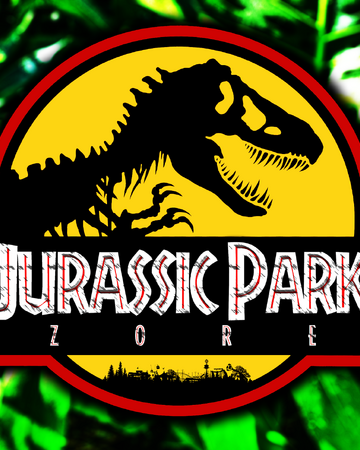
Jurassic Park Font Generator Free
Make your own jurassic park logo!.
Jurassic Park is a 1993 American science fiction adventure film directed by Steven Spielberg and produced by Kathleen Kennedy and Gerald R Molen It is the first installment in the Jurassic Park franchise, and is based on the 1990 novel of the same name by Michael Crichton and a screenplay written by Crichton and David Koepp The film is set on the fictional island of Isla Nublar, located off. Looking for Jurassic Park fonts?. Font Jurassic Park release note updateing s Jurassic Park , Film Himmel Jens R Ziehn , Movies TV , Famous , Jurassic Parkttf , jurassic_prevjpg , Windows font Characters sample.
Make your own jurassic park logo!. This font resembles the lettering used for the Jurassic Park movie. Characters Letter of alphabet (az) and special characters of JurassicPark font Online Preview Font Generator is a font preview tool that allows you to view online what the font text will look like To view the JurassicPark font, just enter the desired text or characters in the box below.
It's a free online image maker that allows you to add custom resizable text to images It operates in HTML5 canvas, so your images are created instantly on your own device Most commonly, people use the generator to add text captions to established memes, so technically it's more of a meme "captioner" than a meme maker. Oct 10, 16 Jurassic Park Font Generator. Useful & free design resources delivered to your inbox every week Jack Daniel’s Logo Here is the Jack Daniel's logo in vector format(svg) and transparent PNG, ready to.
Make your own jurassic park logo!. 10 Jurassic Park About the font The small colored lines offset by the larger cream colored blocks of text make this font particularly unique and the simplistic bold harkens back to another period in time We love this font so much that we even have a tutorial on how to make your own Jurassic Park title Download a free version here Via 1001. Loadingio's Jurassic Park palette contains 9 colors including #781d18,#e,#e5756c,#d9bcb4,#,#f0be,#9954,#,#3e1e14, available in PNG / SVG / JSON and SCSS format for your next design project.
Make your own jurassic world merchandise Such as tshirts, caps, mugs, cakes, key rings, lockets, stickers and anything you could think of your Creativity is the limit It can also be used in large scale billboards I will write any text or any name not more than 3 words and you will be a part of epic movie. Font generator jurassic park July 18, September , 1990’s Fonts Cool Fonts Custom Fonts Decorative Fonts Free Fonts Graffiti Fonts Halloween Fonts Handlettered Fonts Outline Fonts Pirate Fonts Symbols Fonts by hipfonts Jurassic Park Font – 65 Million Years in the Making. The Jurassic Park logo available for download as PNG and SVG(vector) Get it here!.